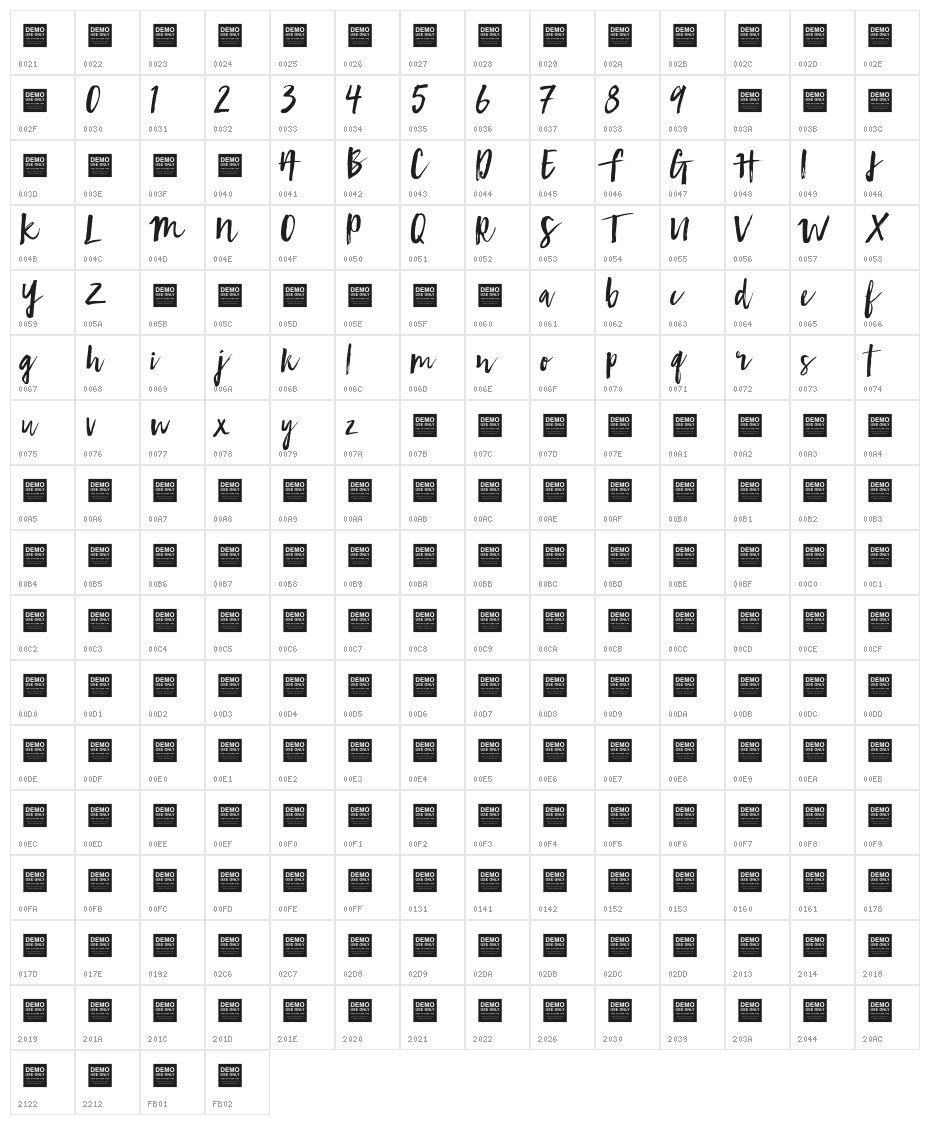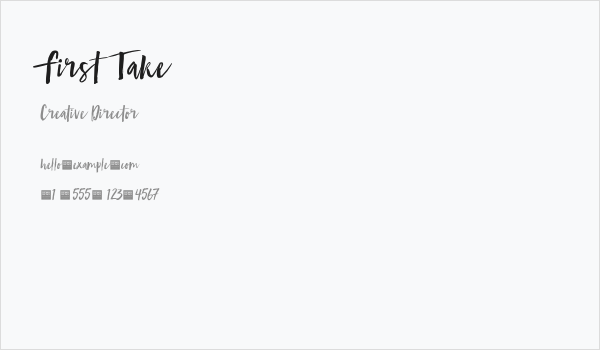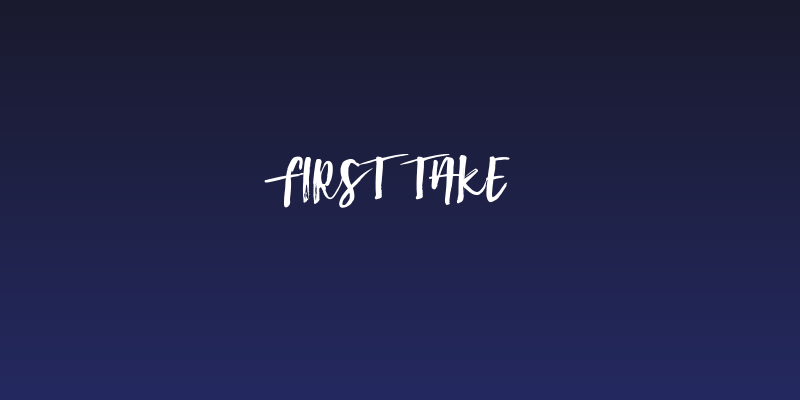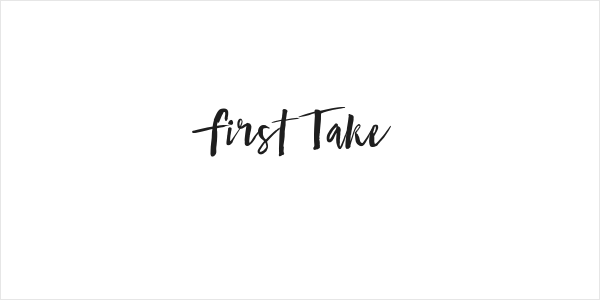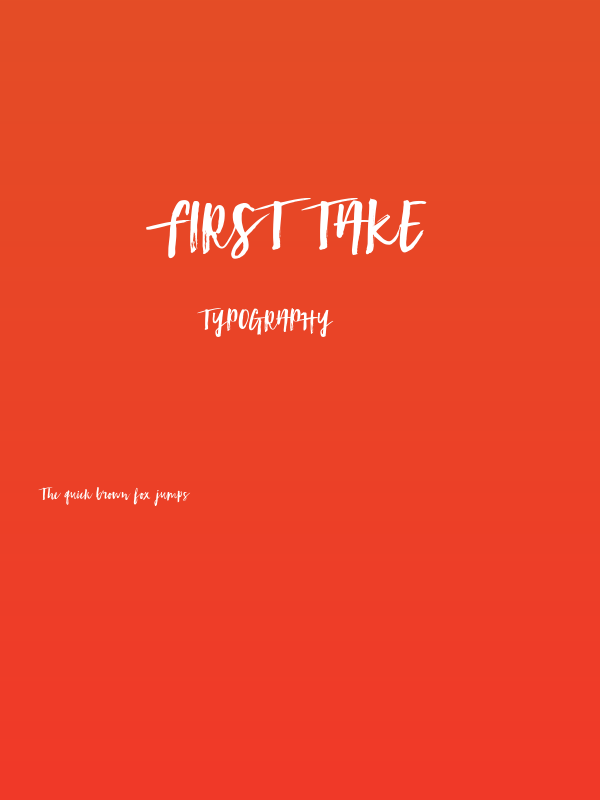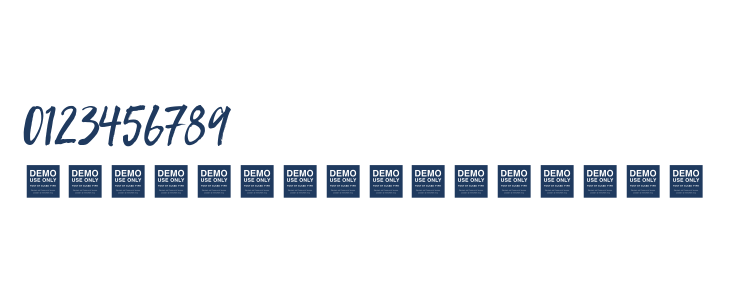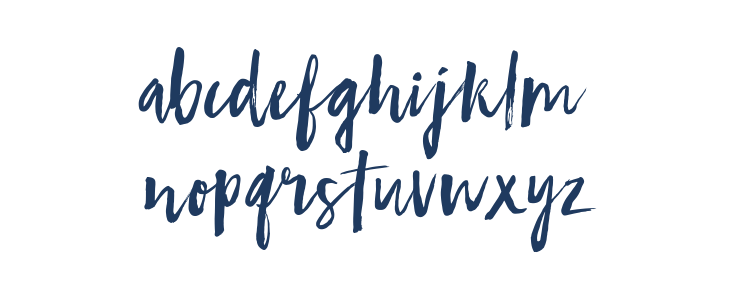
First Take Font
This font features a bold, expressive handwritten style with a brush-like texture. The strokes are dynamic and varied, giving it an energetic and artistic appearance. The uppercase and lowercase letters maintain a consistent flow, with some letters extending slightly beyond the baseline, adding to its casual and informal charm. The numbers are equally expressive, maintaining the same brushstroke aesthetic. This font is perfect for projects that require a personal touch or a creative flair, such as invitations, posters, or branding materials.
| Proposed Projects | Ideal for creative projects like invitations, posters, branding, and artistic designs. |